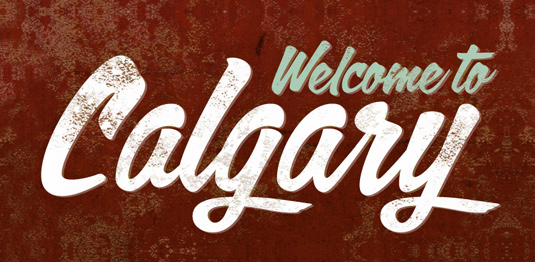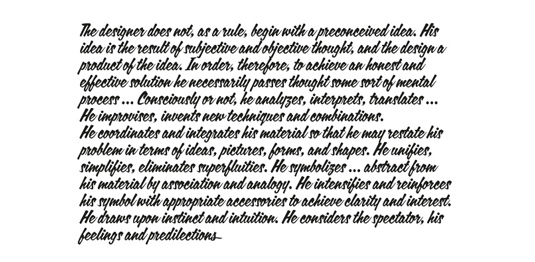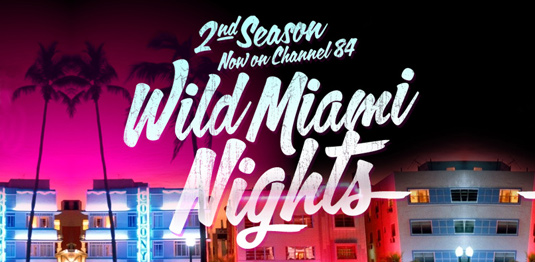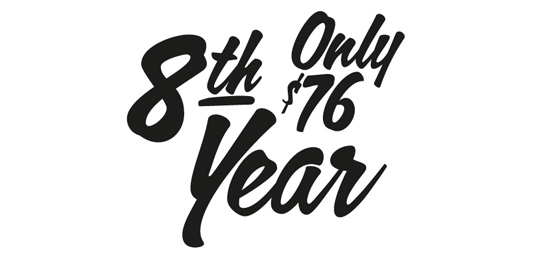
Font of the day: Calgary Script
Every day we showcase the best fonts on the web. Today it's Calgary Script from Sudtipos.
Calgary Script by Alejandro Paul
Designer Alejandro Paul was inspired to create this font during his travels. "Calgary Script was mostly inspired by a brush script on a Welcome To Calgary sign in, you guessed it, Calgary," he comments on MyFonts. "Though now, after it’s finished, I can easily tell the influence is evident of all the books on American sign painting I have absorbed over the years.
"The overall effect of the font is similar to something that Fonzied itself, big hair and leather jackets and all, out of the early 1980s, but the feeling really dates back to a few decades earlier. Heady caps and free-flowing lowercase make for a speedy, determined, and instinctively organized buffalo herd of a typeface."